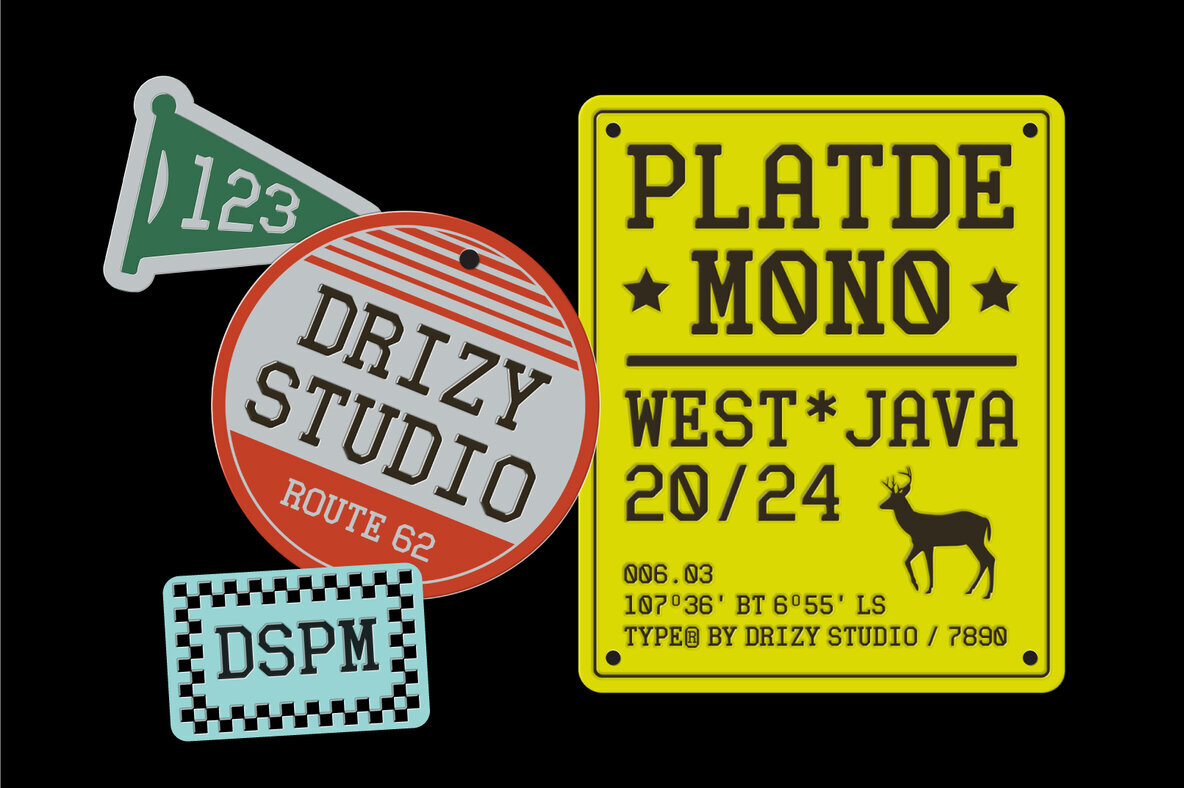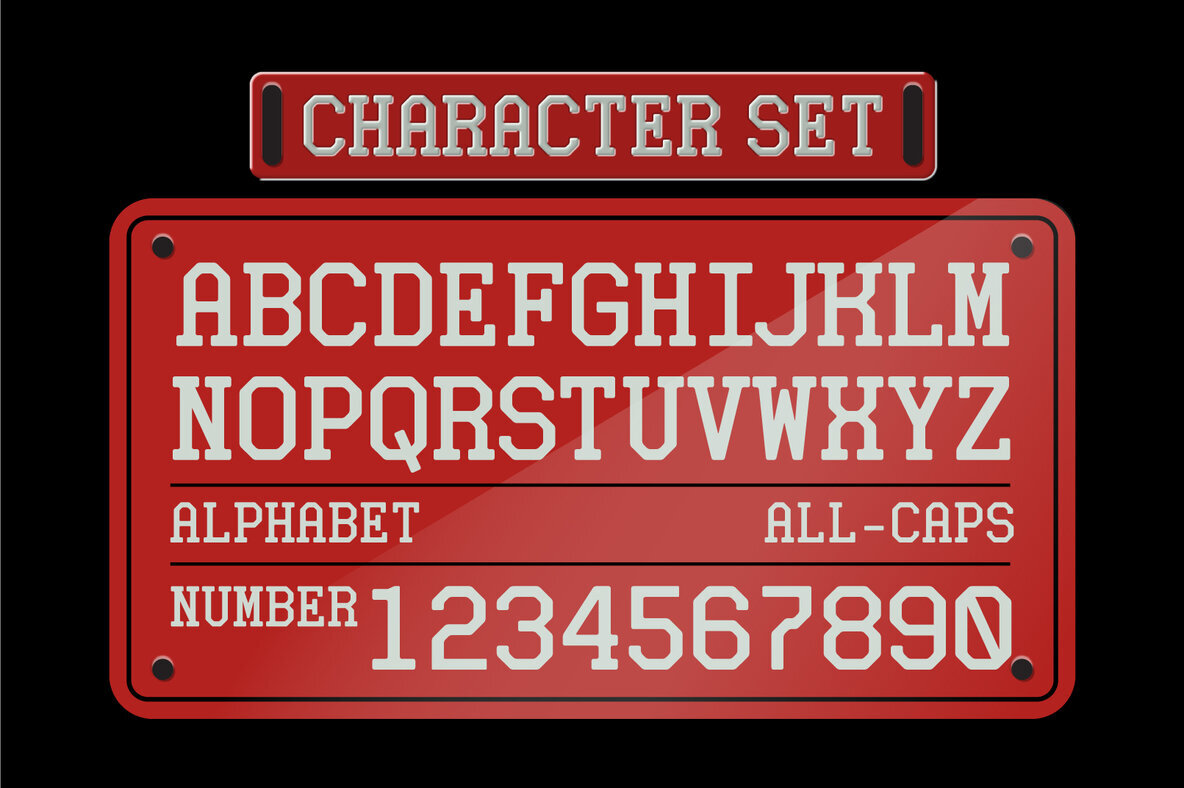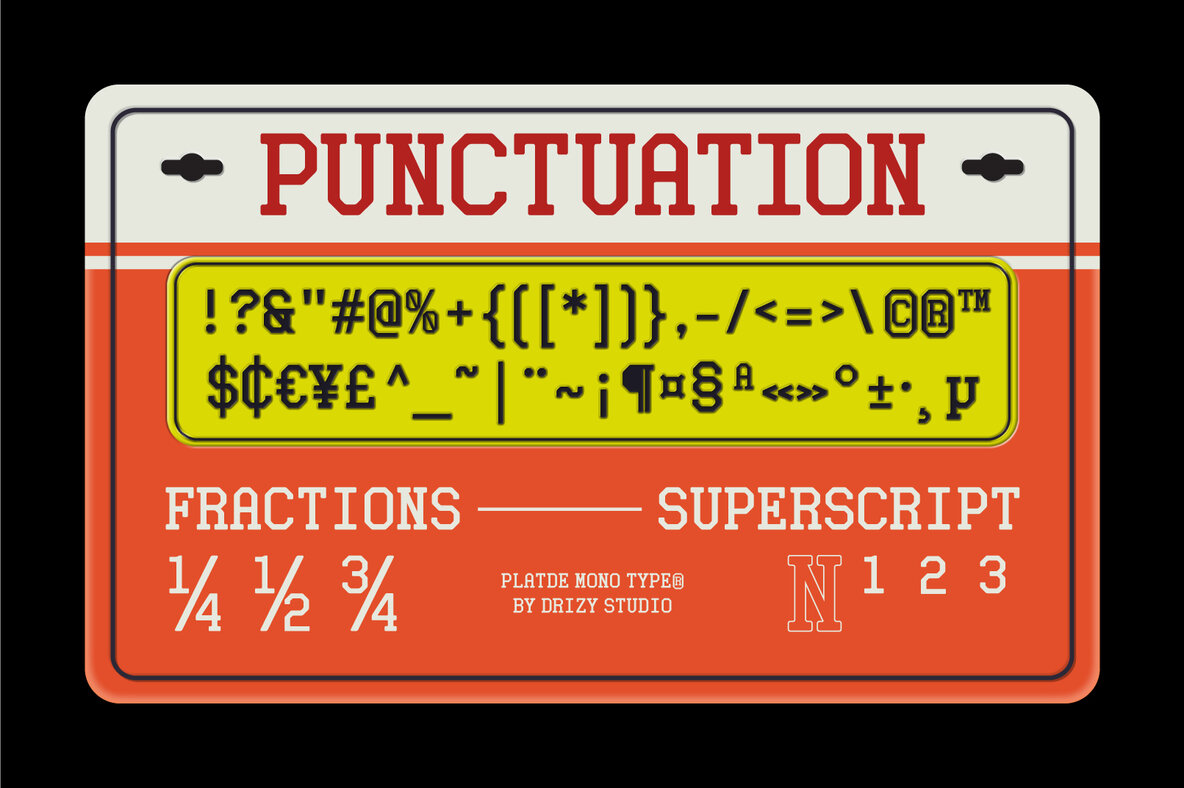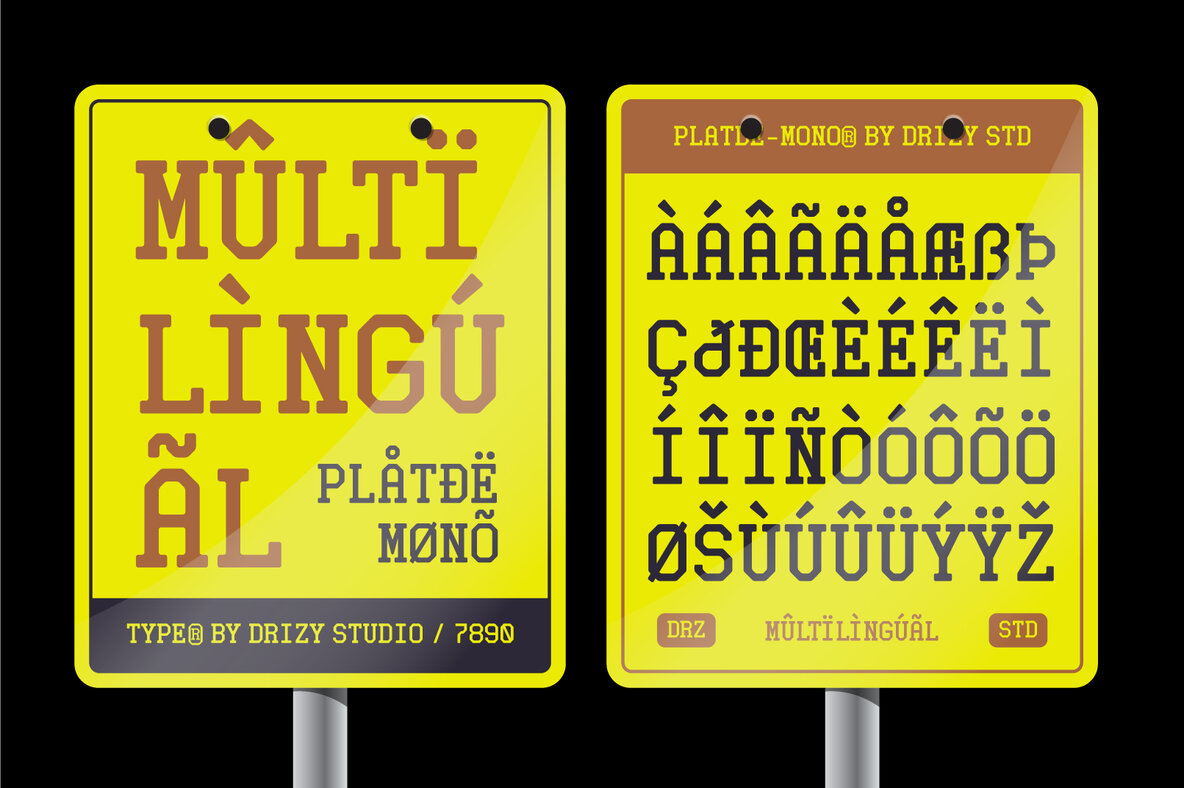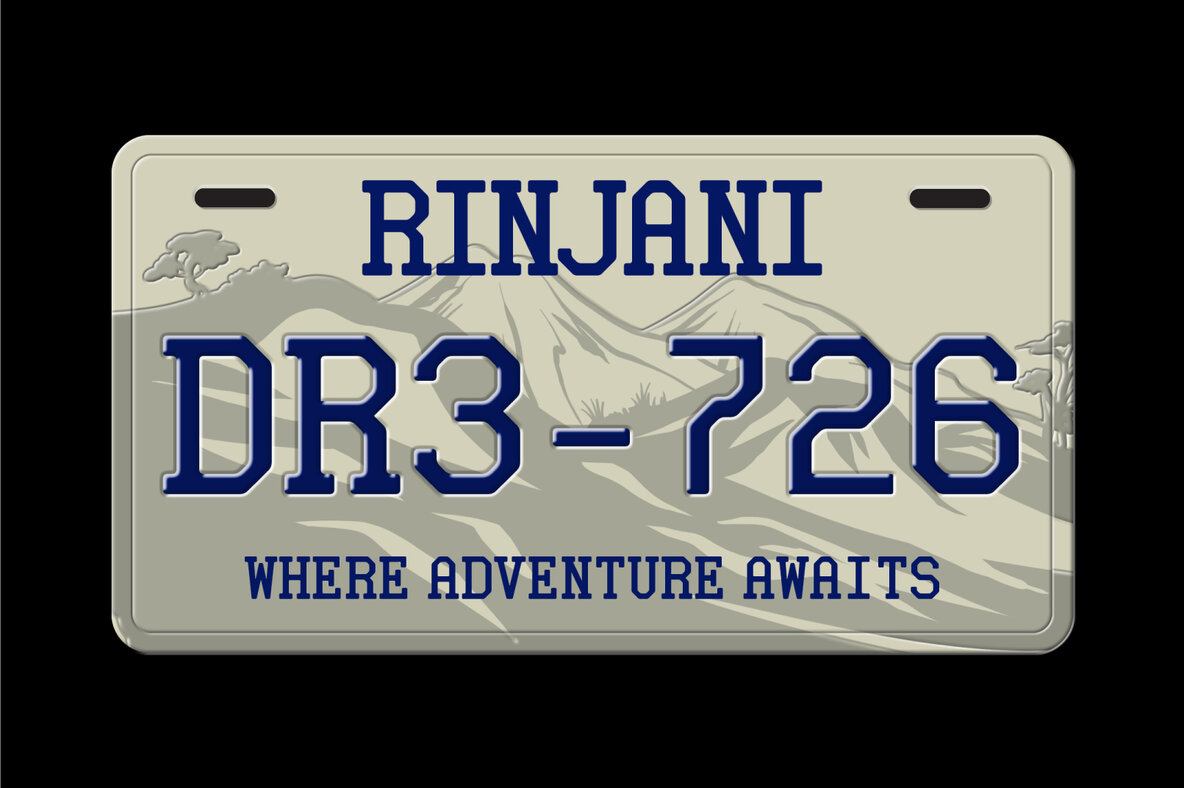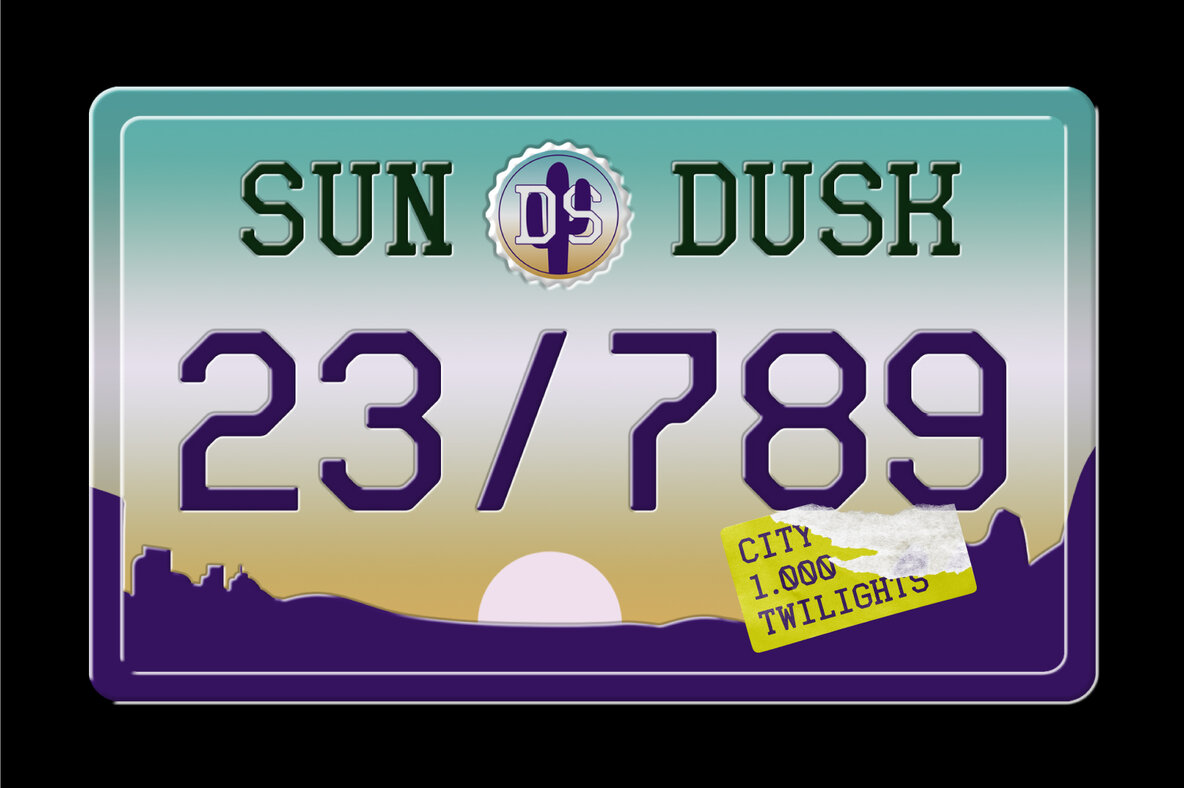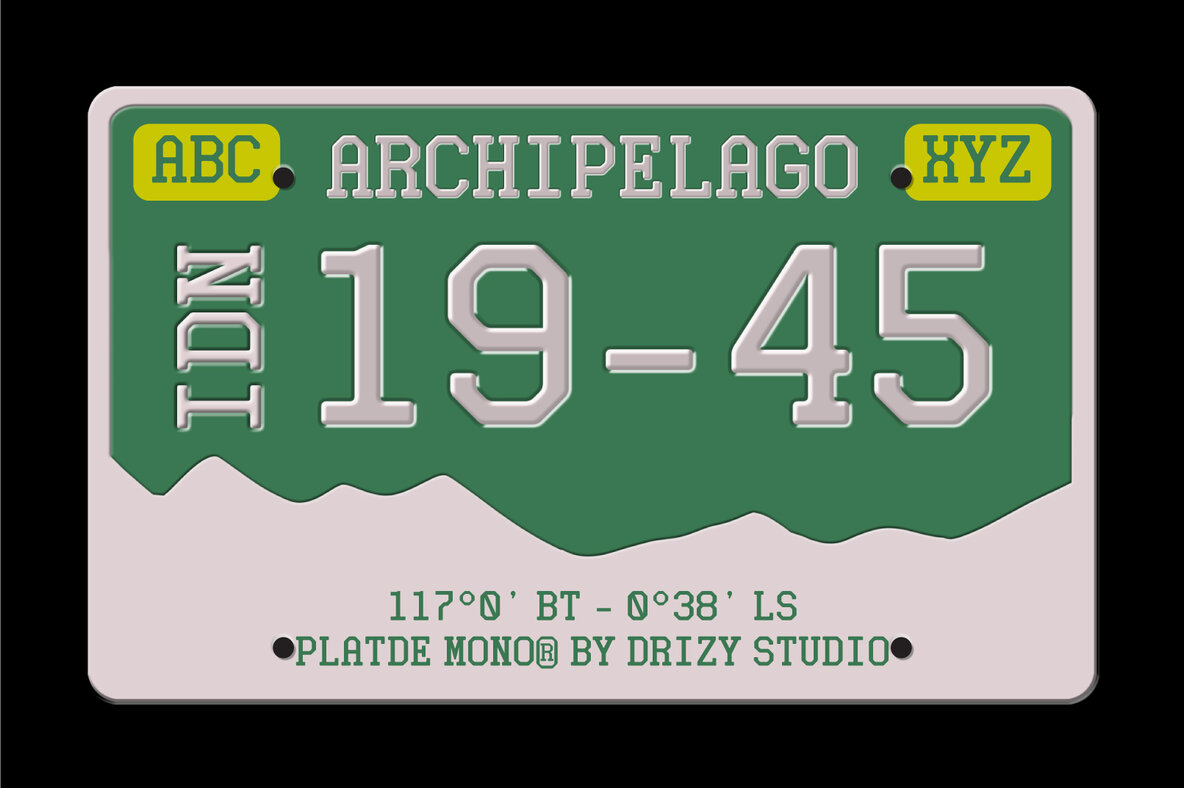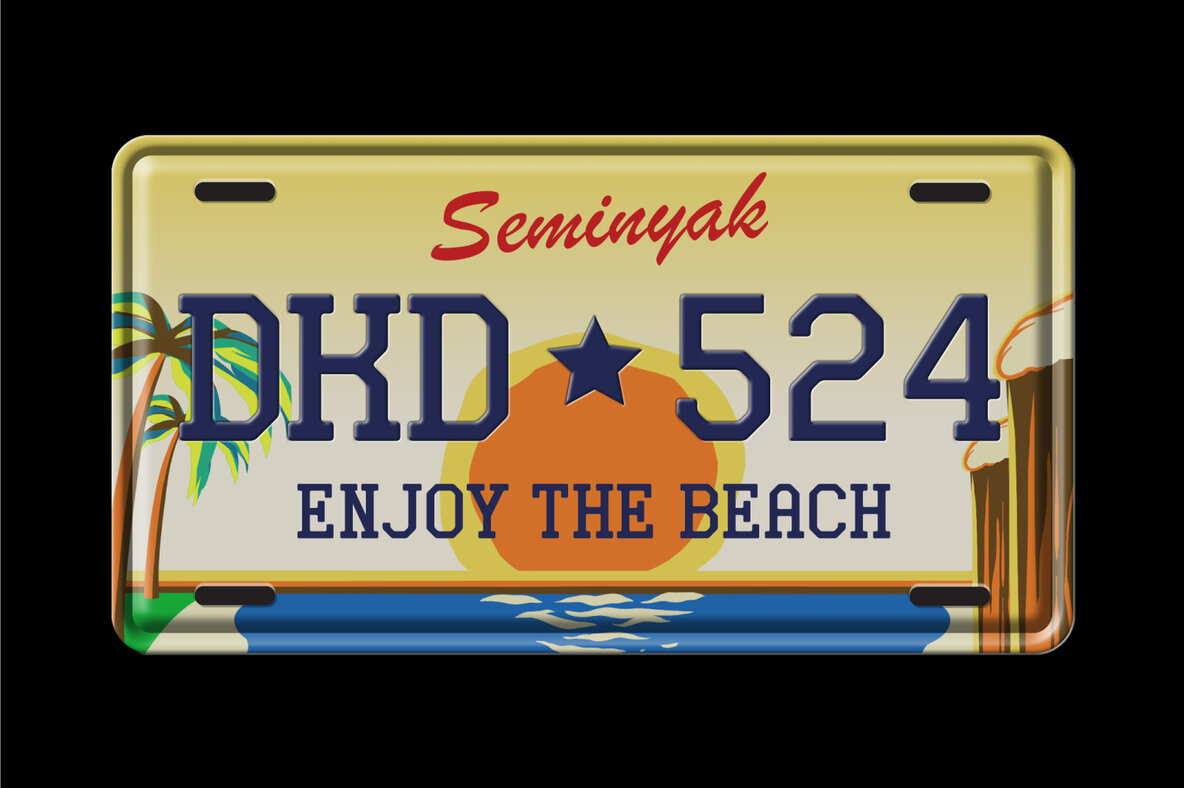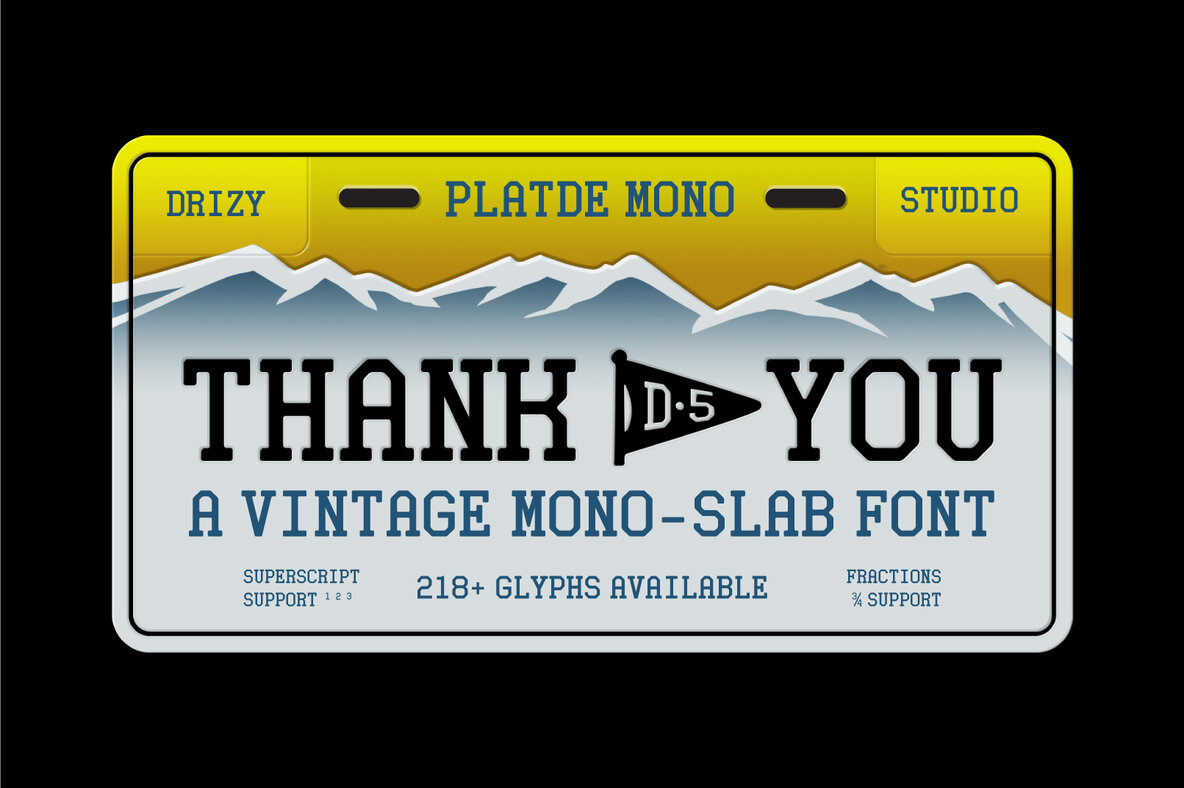
Platde Mono Font
Platde Mono
Platde Mono – Vintage Mono Slab is a meticulously crafted font that evokes the nostalgic charm of vintage license plates. Drawing inspiration from the classic monospaced slab serif typography seen on old vehicle tags, Platde captures the essence of retro Americana while infusing it with a contemporary flair. Platde Mono features: